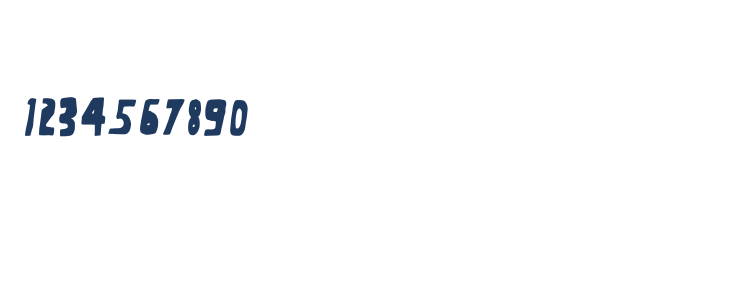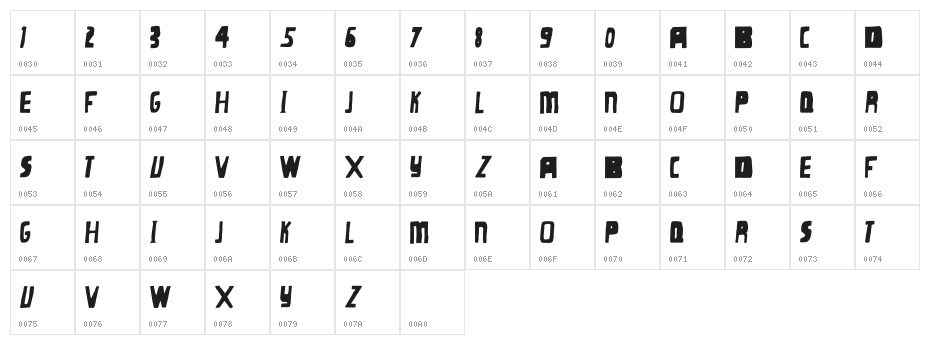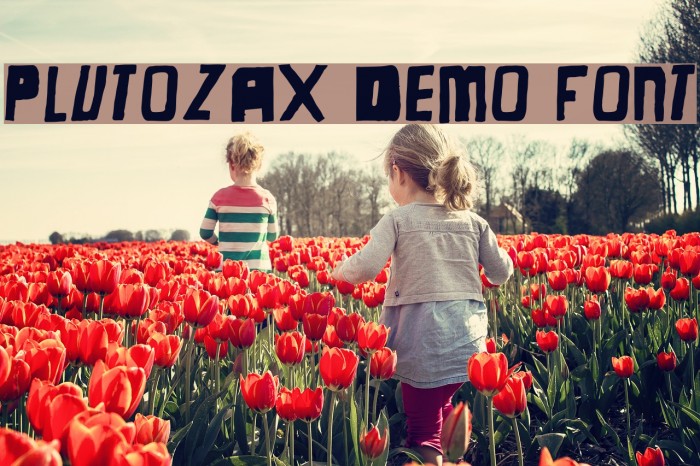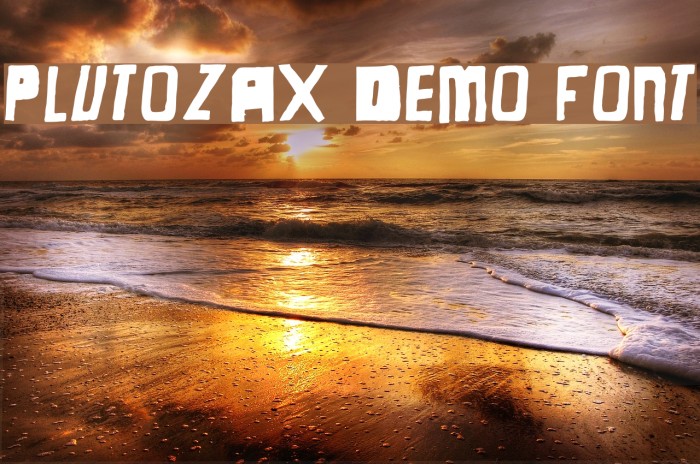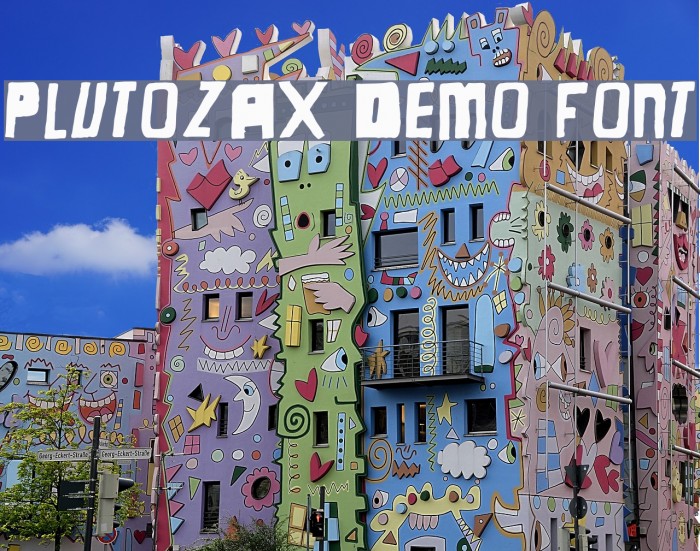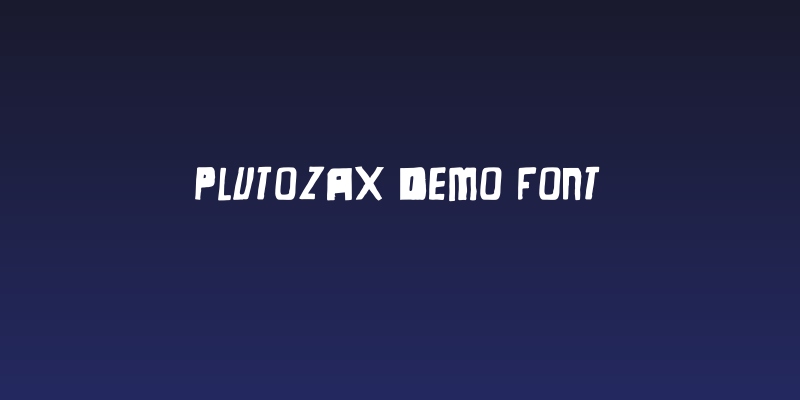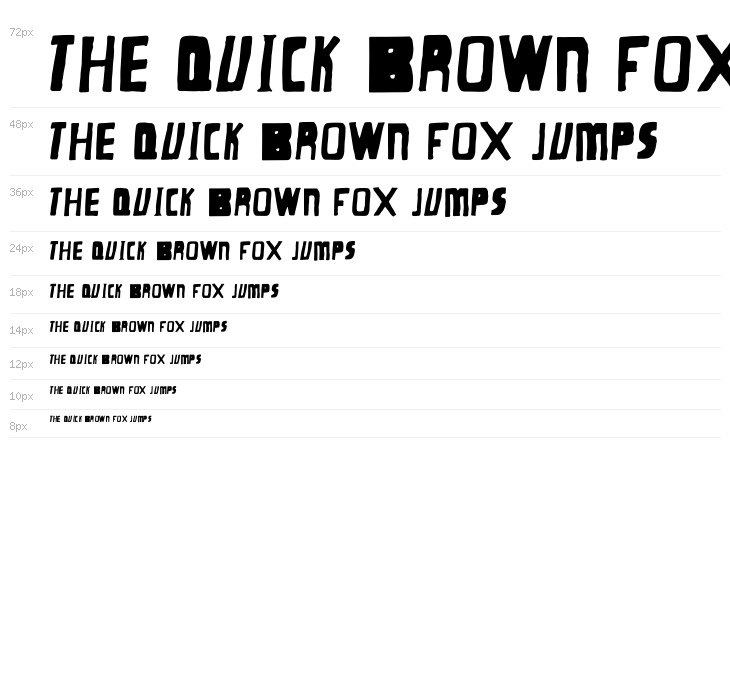
Plutozax Demo Font Font
Plutozax Demo Font Description
This font features a bold and dynamic style with a hand-drawn appearance. The characters are irregular and have a playful, artistic flair, making them stand out with their unique shapes. The uppercase letters are particularly bold, with some characters having a slightly distressed look, adding to the font's charm. The numbers maintain the same boldness and irregularity, ensuring consistency across the typeface. This font is ideal for projects that require a creative and eye-catching design, such as posters, album covers, or artistic branding.
Overall StyleArtistic, Playful
Proposed ProjectsIdeal for posters, album covers, artistic branding, and creative design projects.